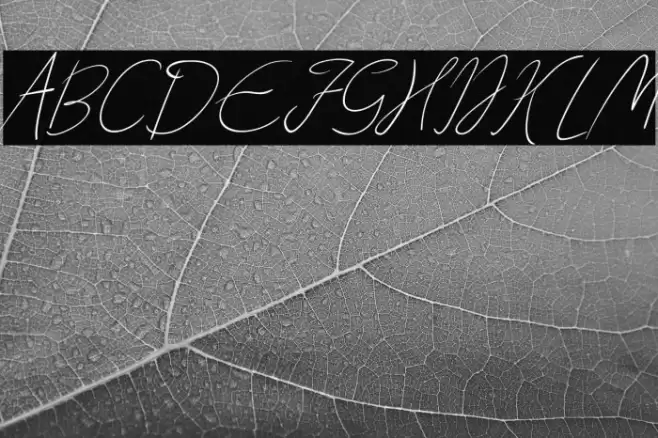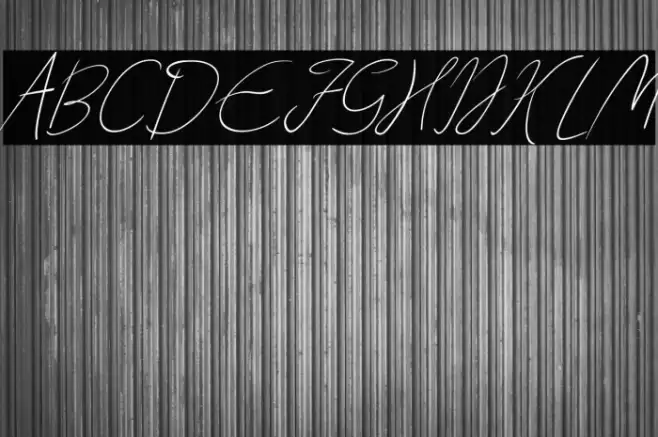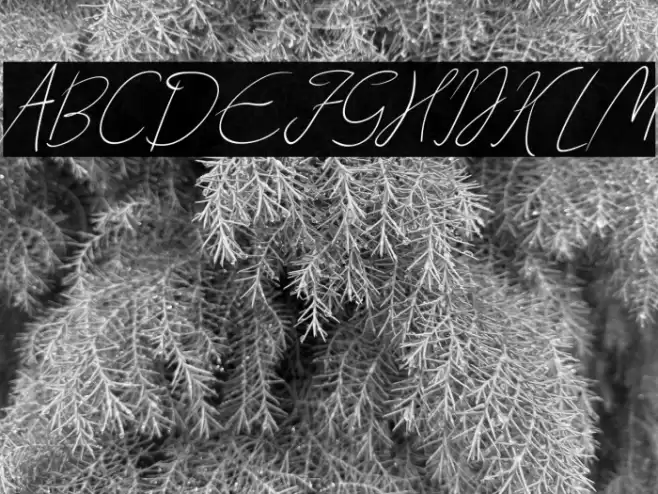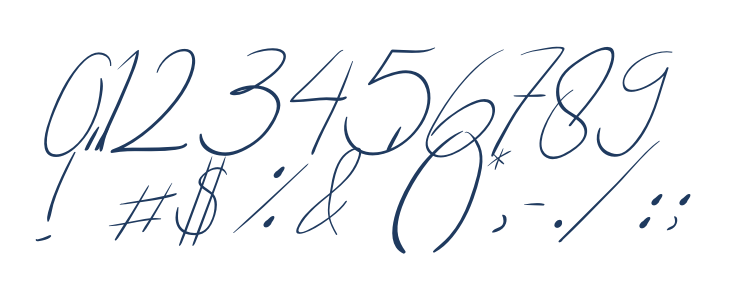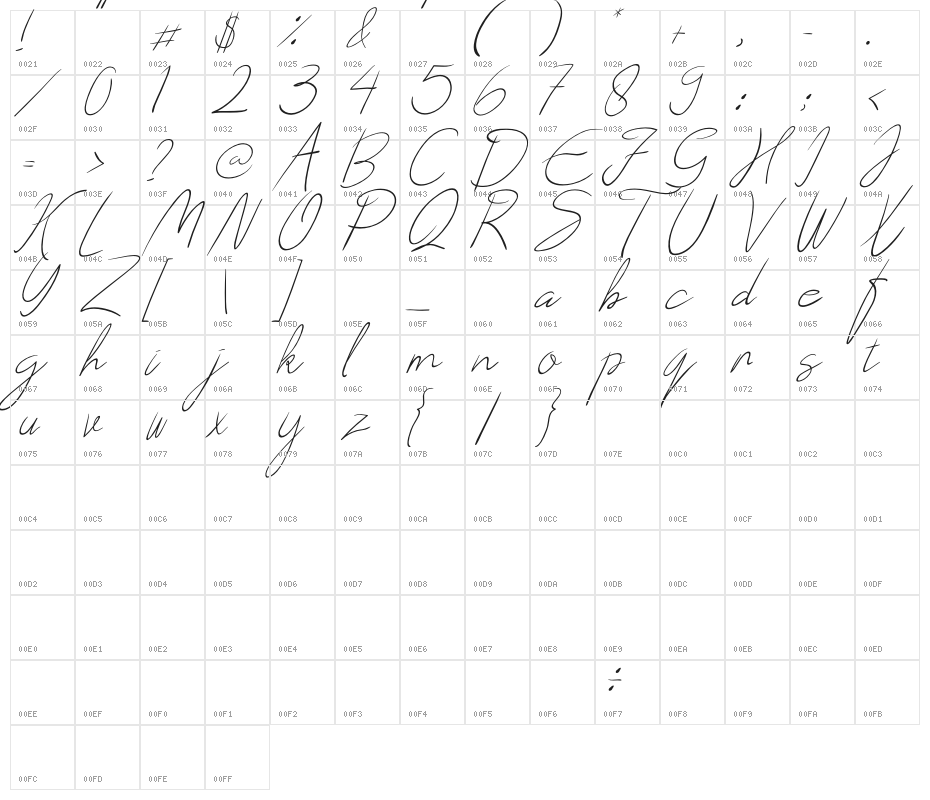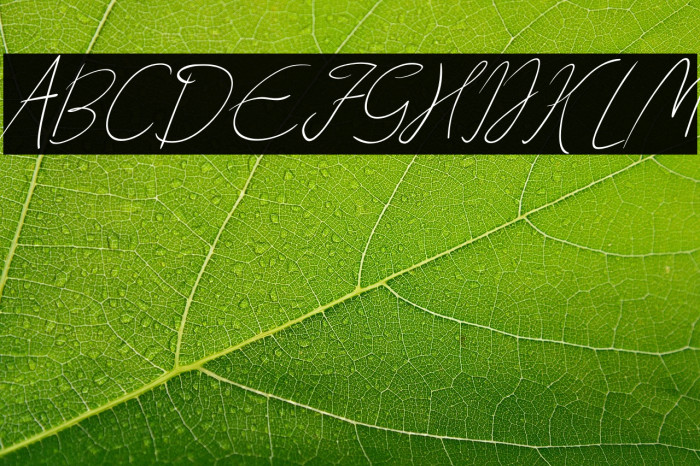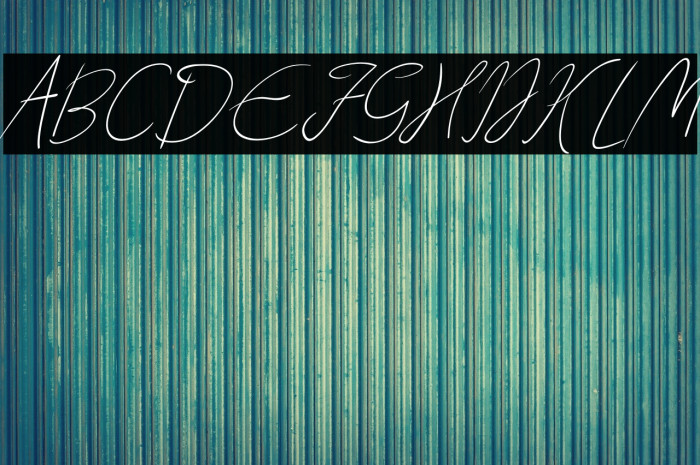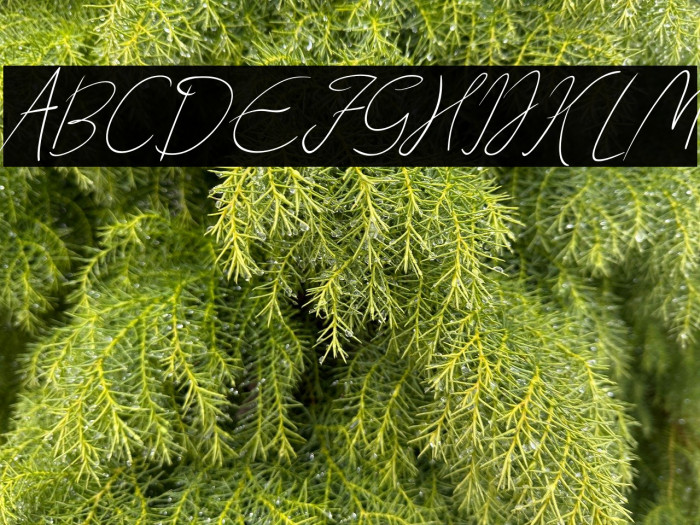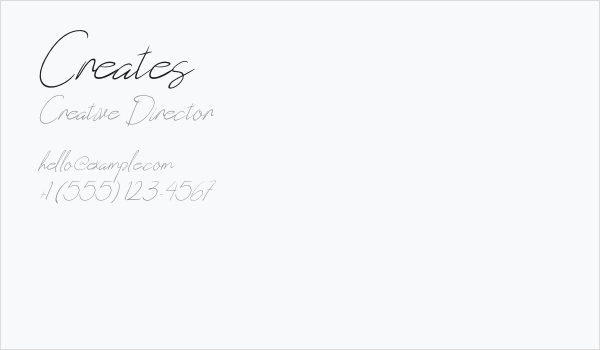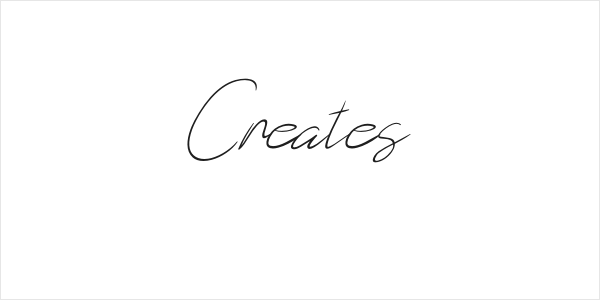
Creates Font
Creates Description
This elegant script font features a flowing, cursive style with smooth, continuous strokes that mimic natural handwriting. The uppercase letters are tall and slightly slanted, while the lowercase letters maintain a consistent, graceful flow. The numerals are distinct and easy to read, complementing the overall aesthetic. Special characters are integrated seamlessly, enhancing the font's versatility. The design exudes a sense of sophistication and fluidity, making it ideal for projects that require a personal touch.
A graceful, cursive script font with elegant, flowing strokes from Uncategorized fonts.
- Font: Creates
- Proposed Projects: Ideal for wedding invitations, greeting cards, personal branding, and elegant packaging designs.
- Overall Style: Elegant
- Use Case: Logos, Invitations, Personal Branding